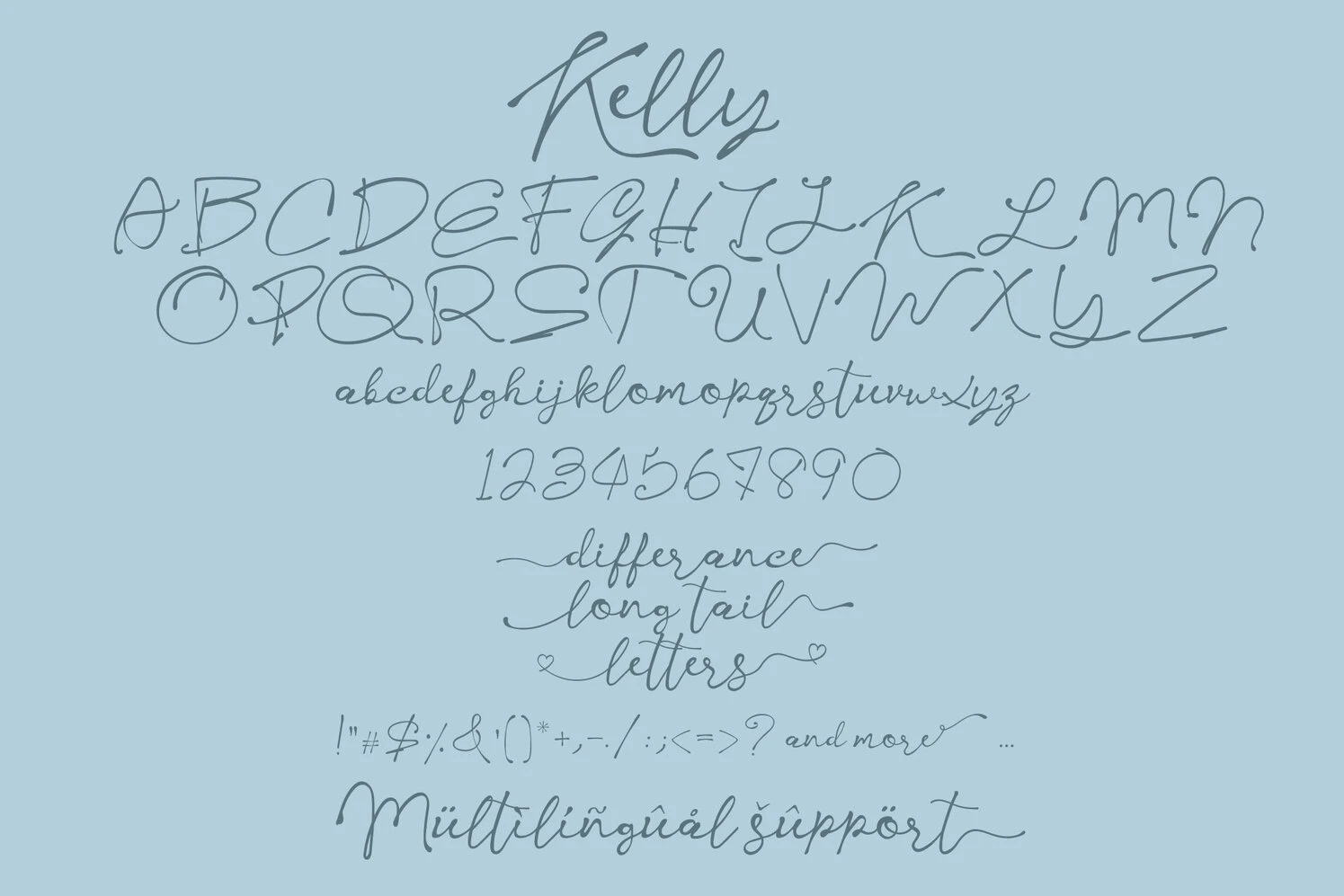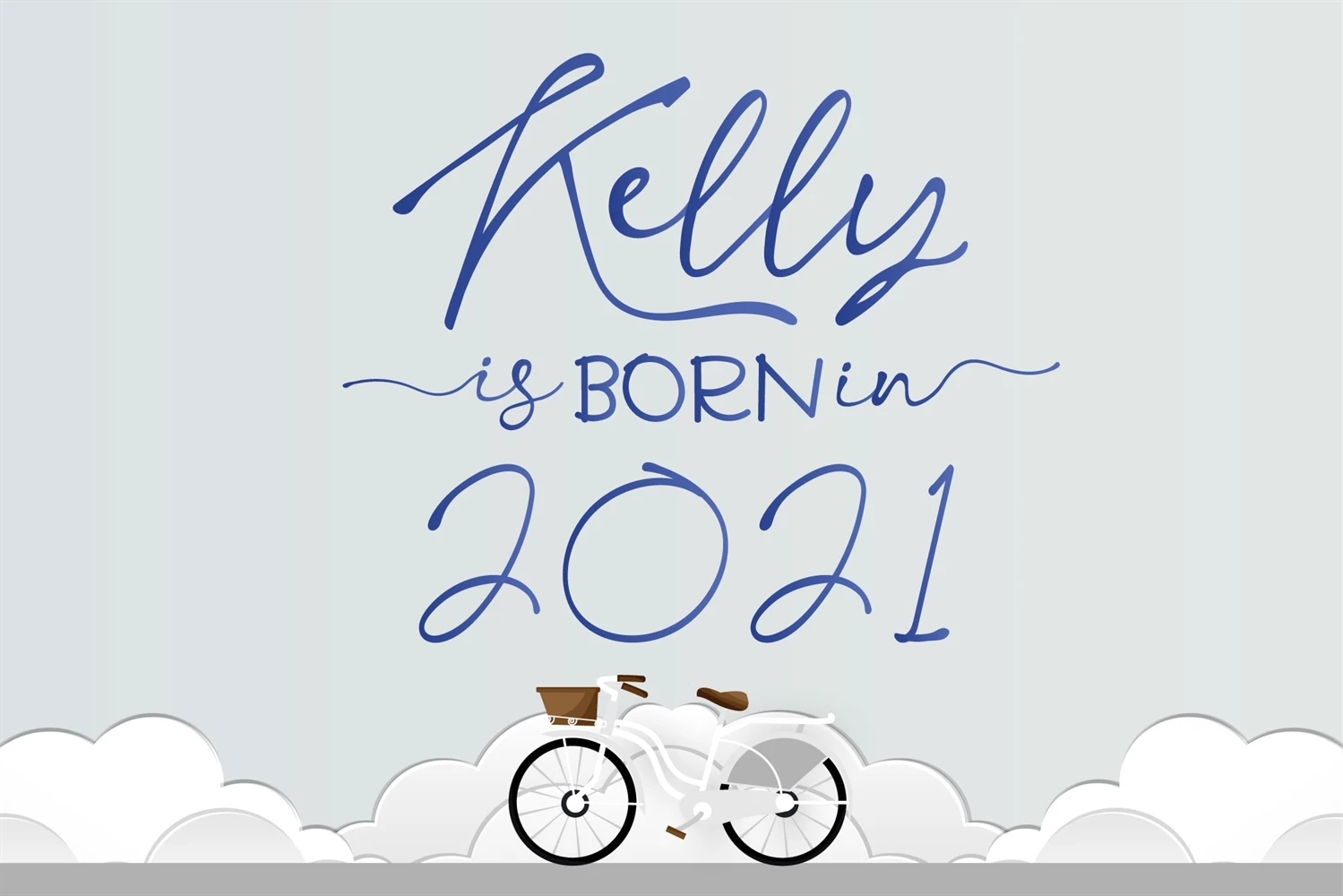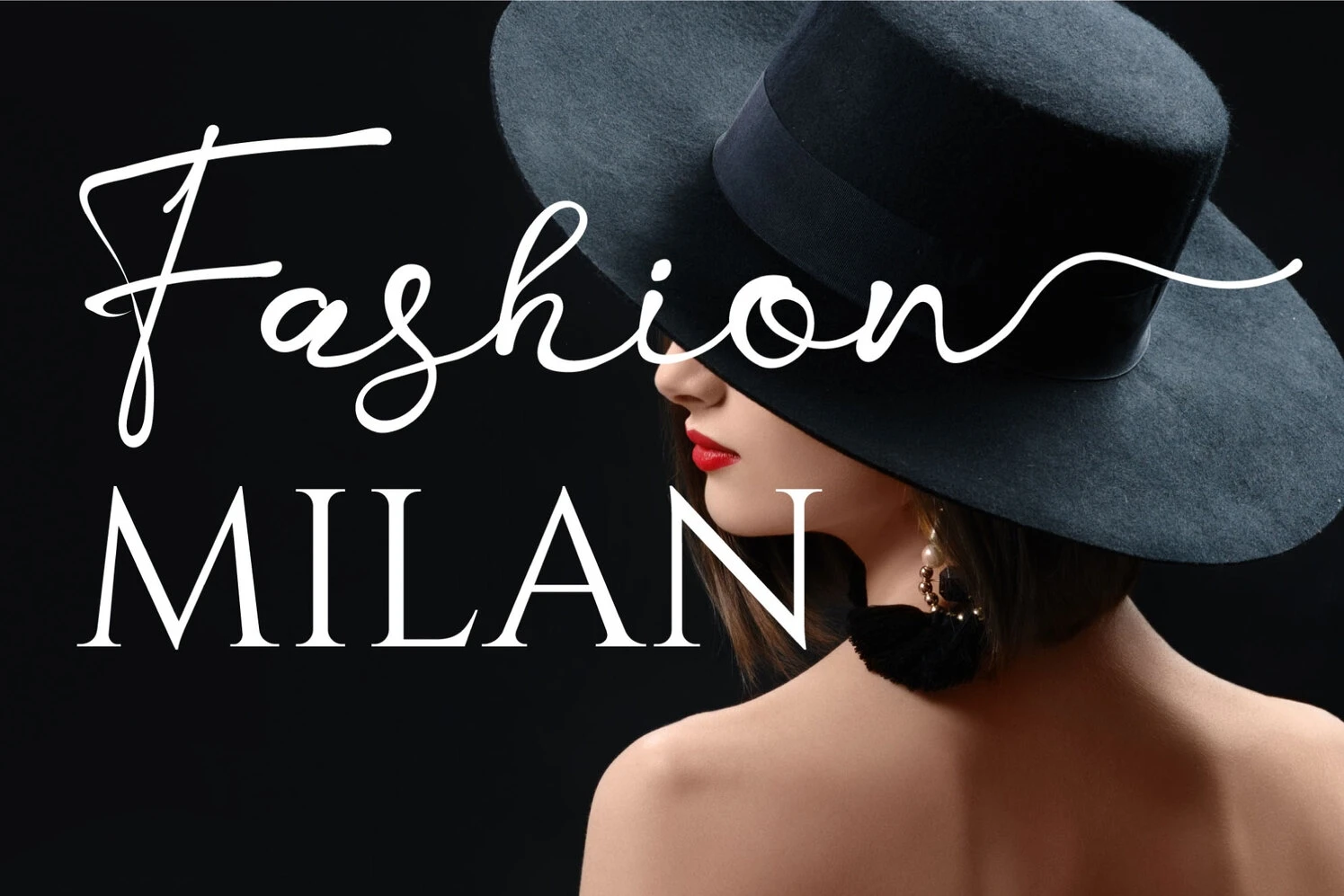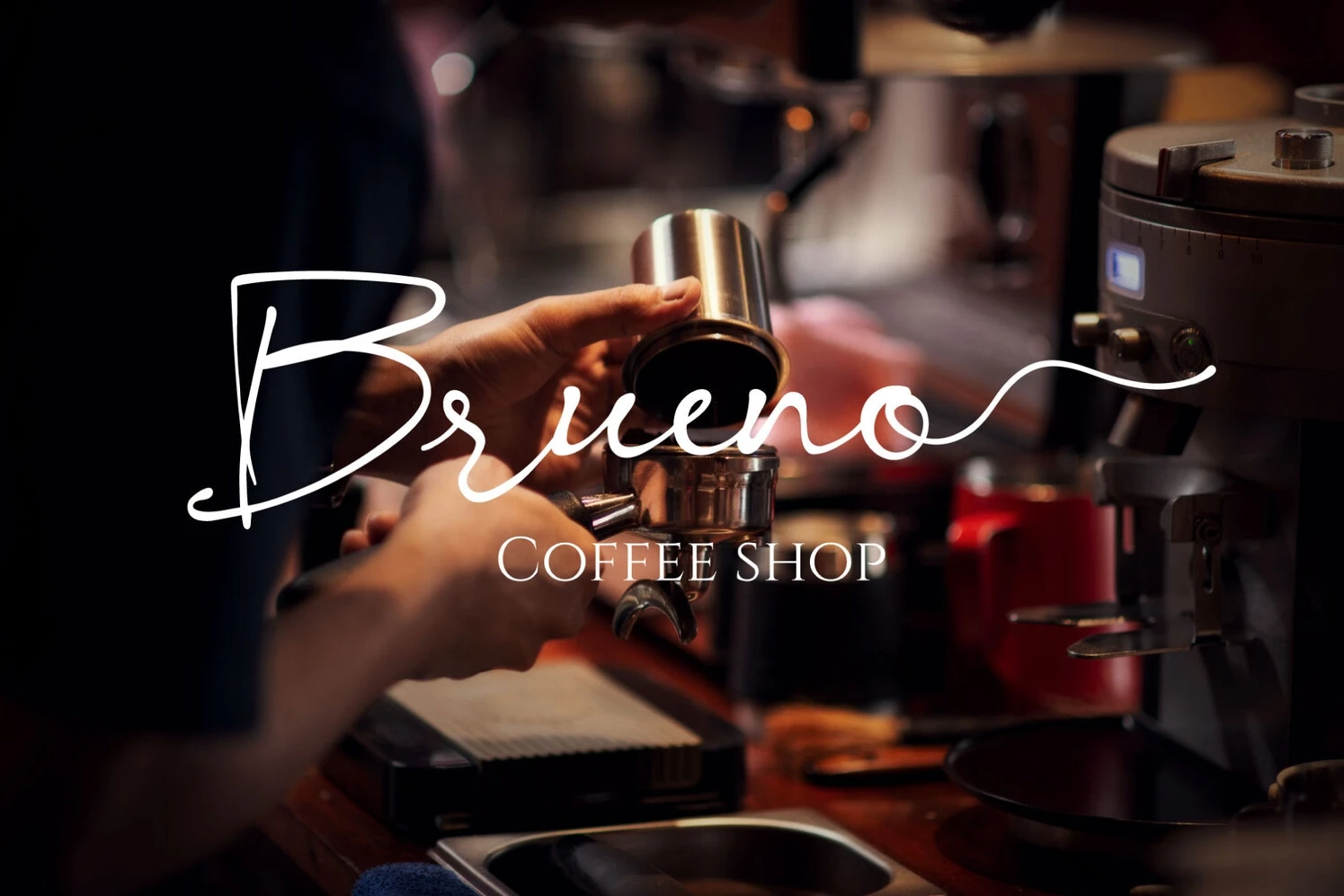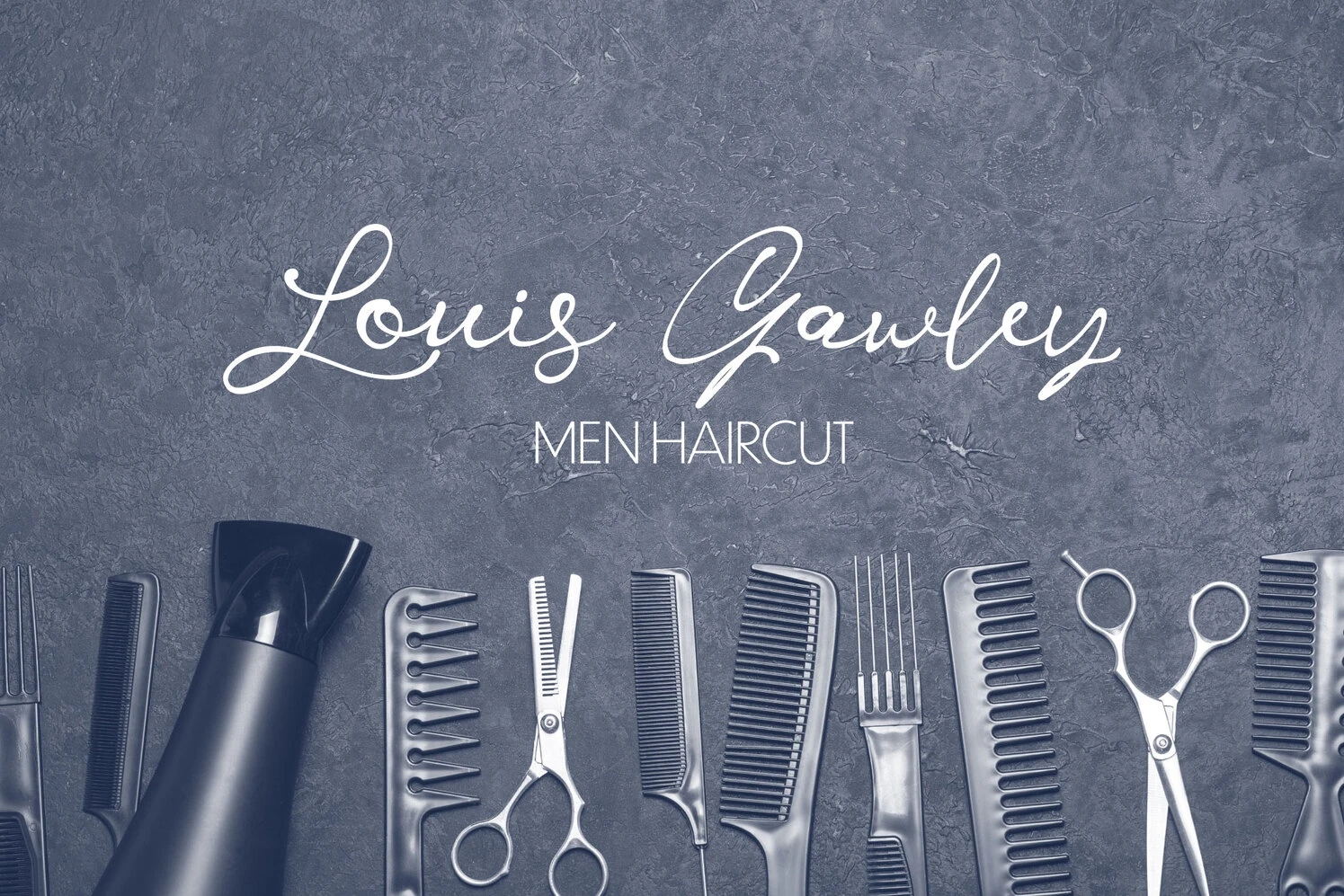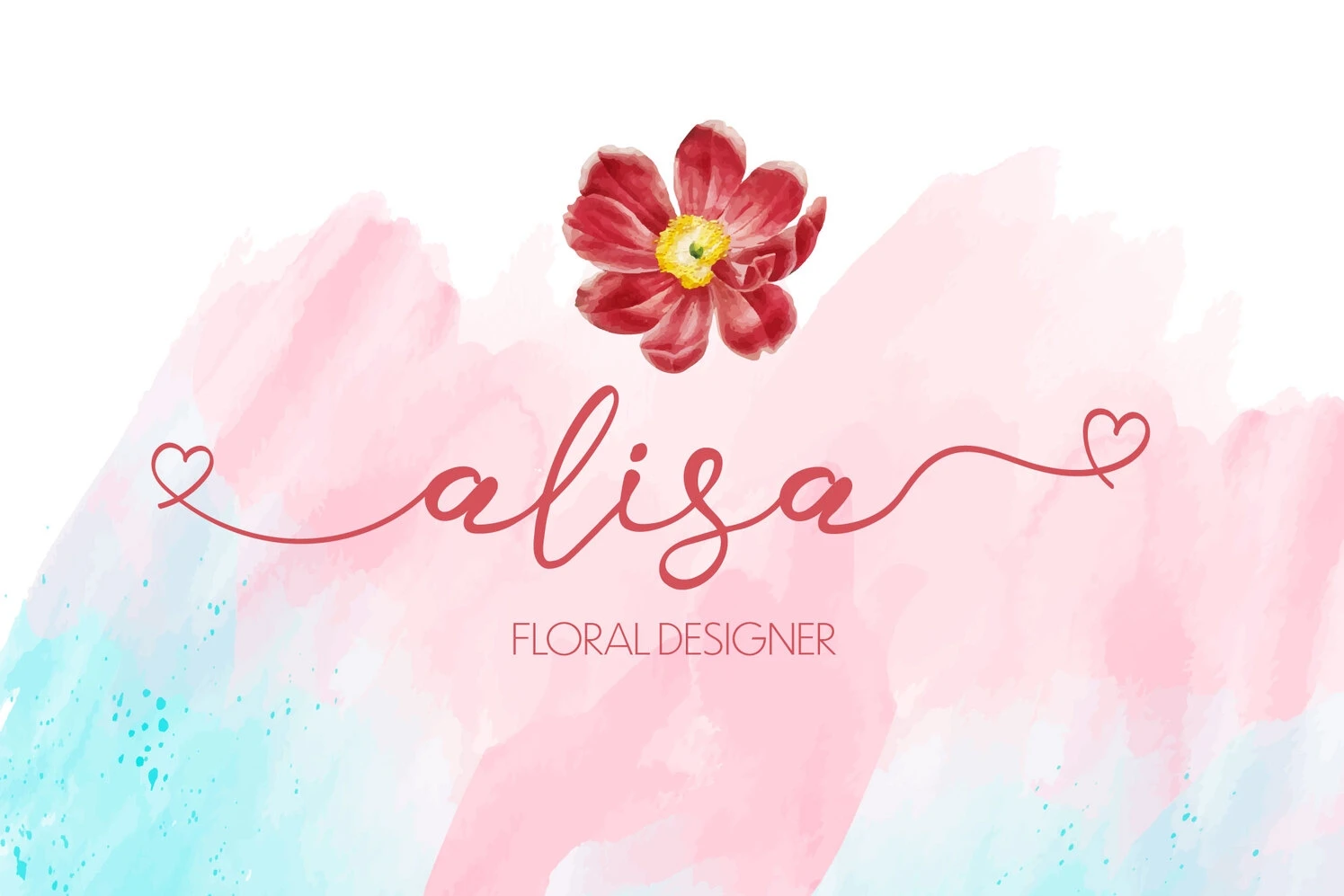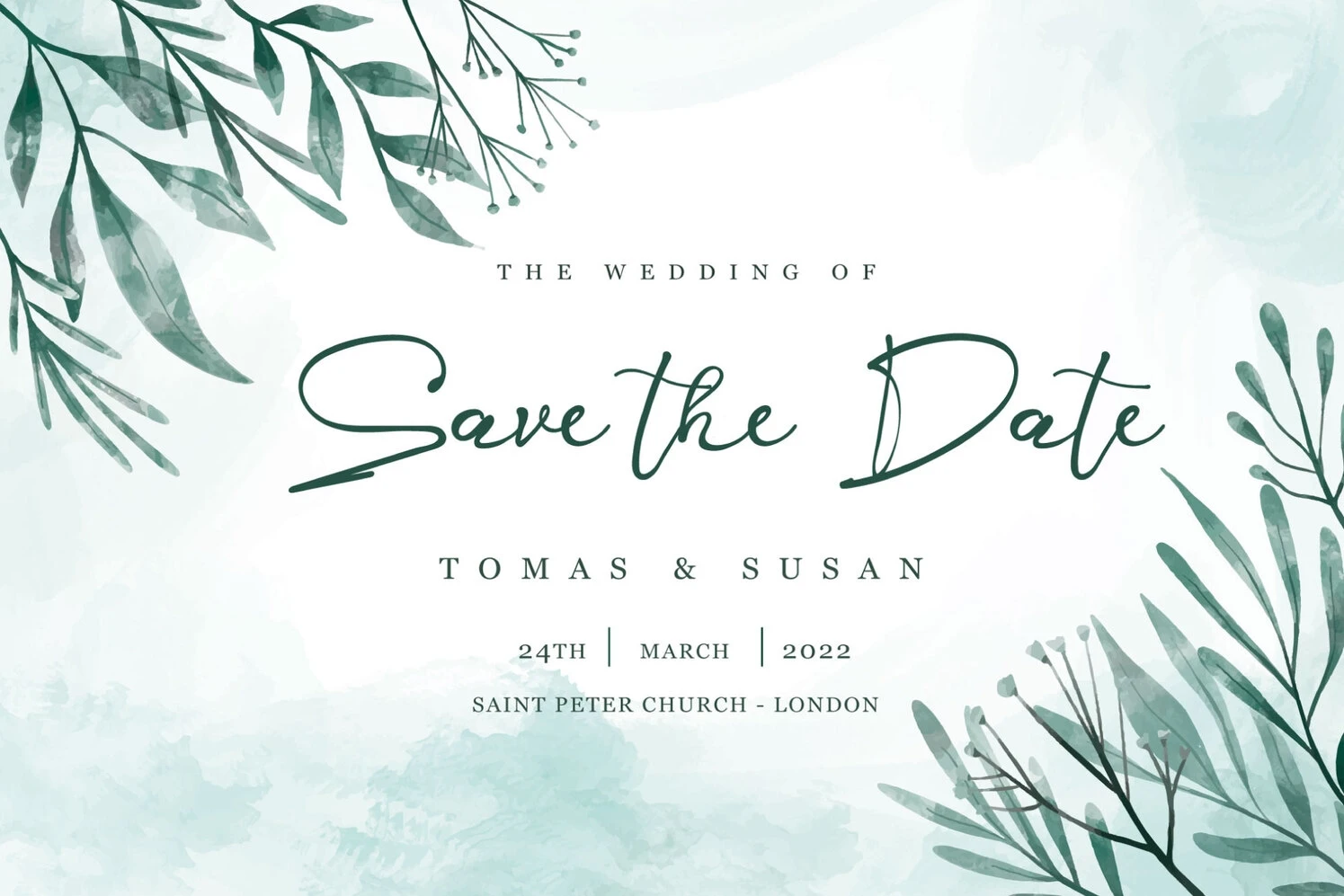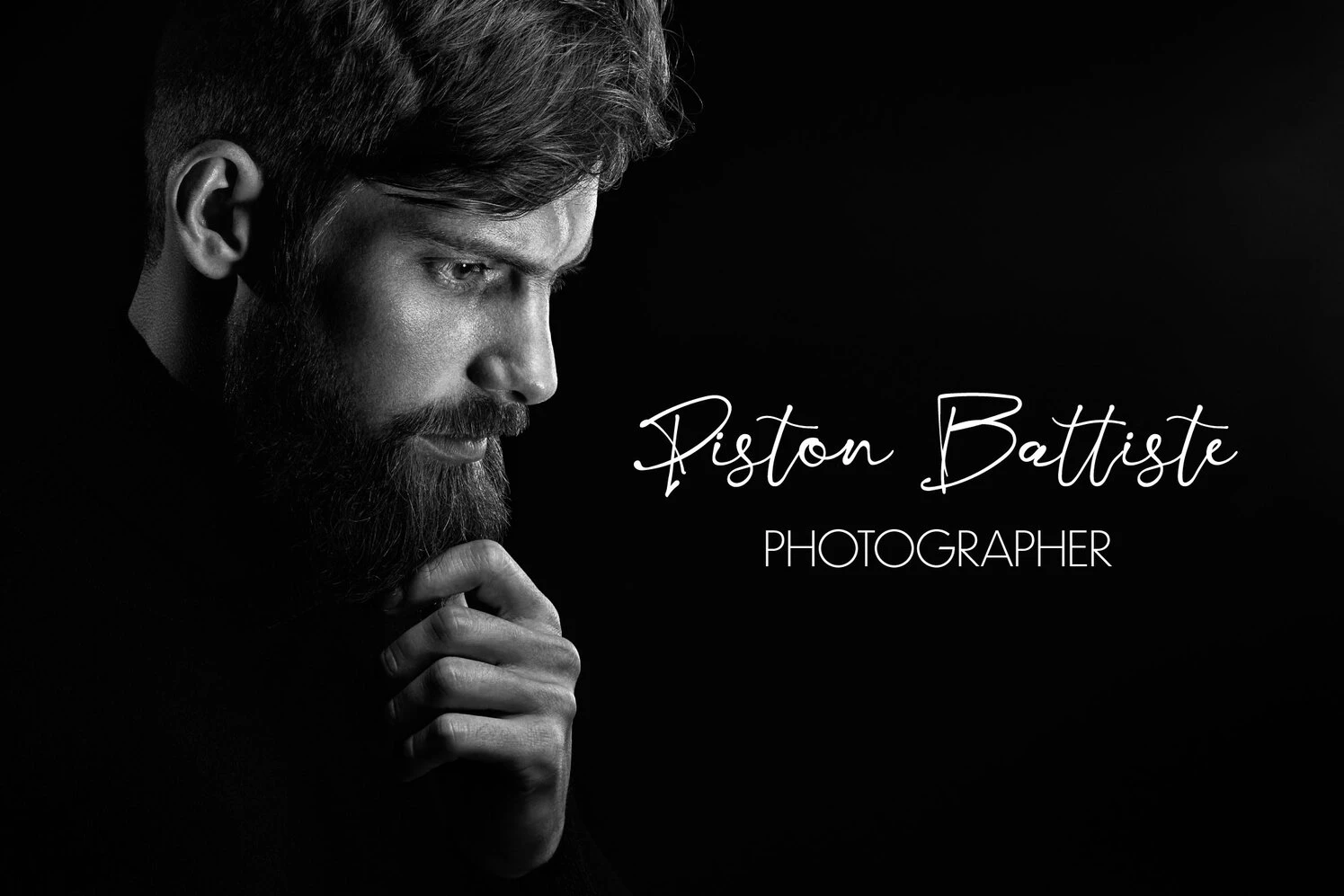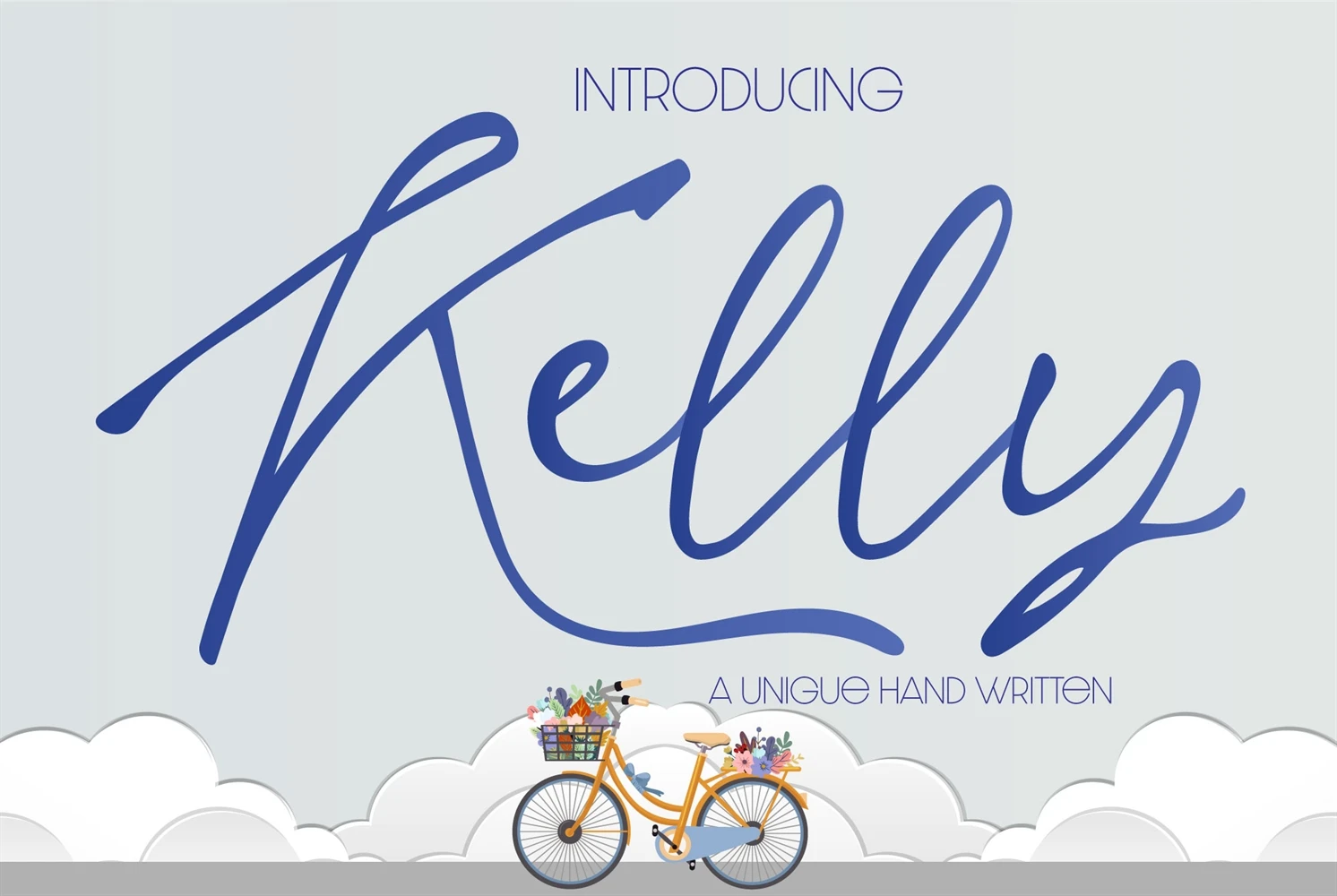
Introducing Kelly, a modern and fast hand-written font that adds a touch of elegance to any design project. Perfect for wedding invitations, postcards, magazines, and business designs, Kelly's fluid strokes and delicate curves create a sophisticated yet playful look. This versatile font comes with a full set of uppercase and lowercase letters, as well as numerals, punctuation, and multilingual support. Whether you're a designer, blogger, or entrepreneur, Kelly is the perfect choice for making your projects stand out. Try it today and see for yourself!